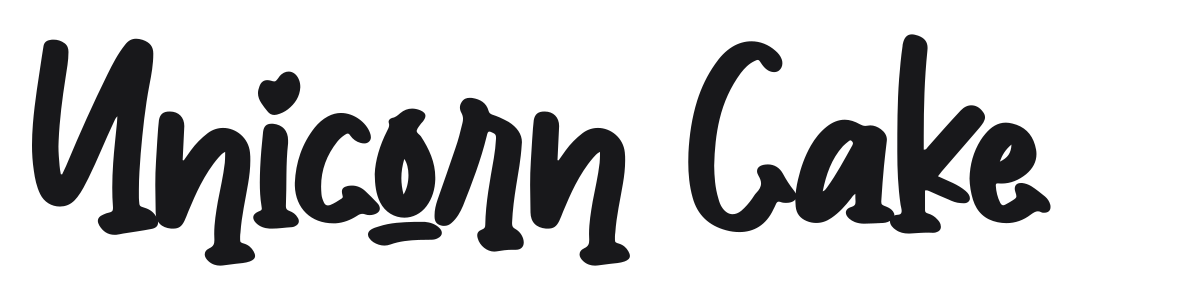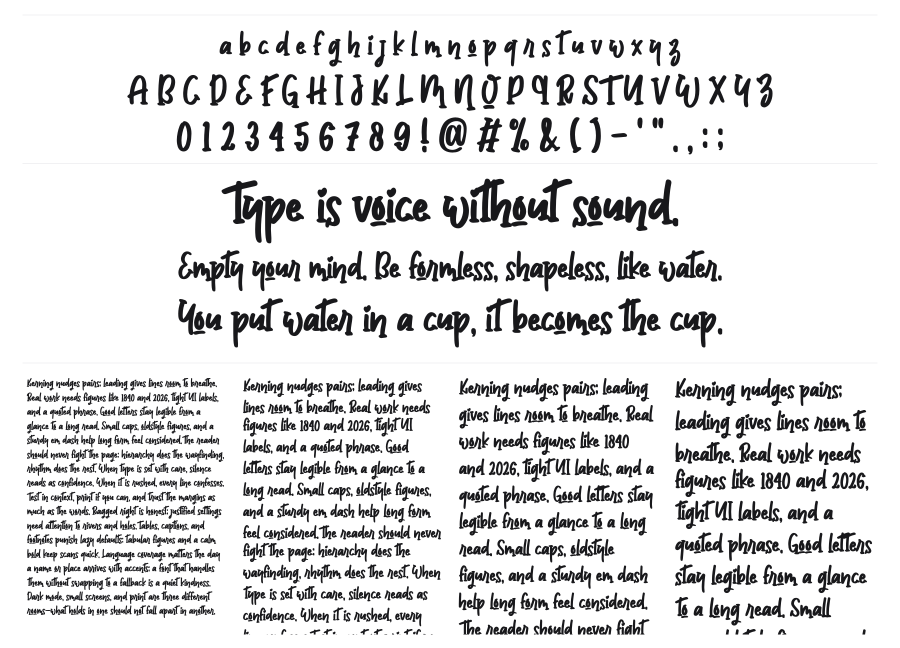
Unicorn Cake
Unicorn Cake is a bold, bubbly casual script with thick rounded strokes and a confident hand-lettered flow. The chunky weight and playful connections between letters give it an upbeat, celebratory personality that reads instantly at display sizes. It fits naturally in contexts involving parties, sweets, kids' branding, and anything that needs a dose of cheerful energy.